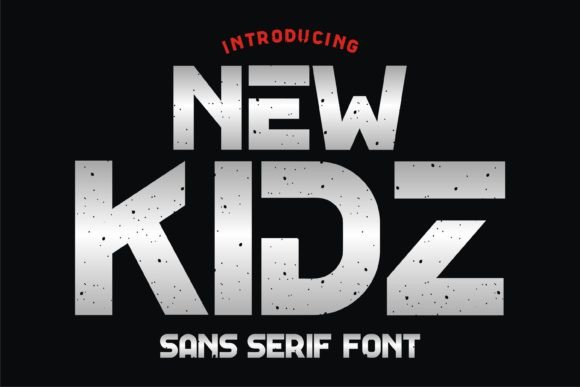
Embark on a typographic adventure with New Kidz Font, a captivating display font that exudes youthful energy and modern elegance. Designed by the creative mind of edywiyonopp, this font is a visual masterpiece that brings a dynamic and futuristic aesthetic to your designs.
New Kidz Font is meticulously crafted to capture the essence of youthful exuberance and vigor. Its bold and confident strokes create a sense of strength and determination, while its carefully kerned characters ensure optimal readability and visual appeal. Whether you're a student, a professional, or simply someone who appreciates unique and expressive fonts, New Kidz Font is the perfect choice to add a touch of modern flair to your projects.
With its strong, professional, and active style, New Kidz Font is the ideal choice for a wide range of applications. Create eye-catching logos that resonate with your target audience, design stunning posters that command attention, or craft captivating social media graphics that leave a lasting impression. The versatility of New Kidz Font knows no bounds, making it a must-have for any designer's toolkit.